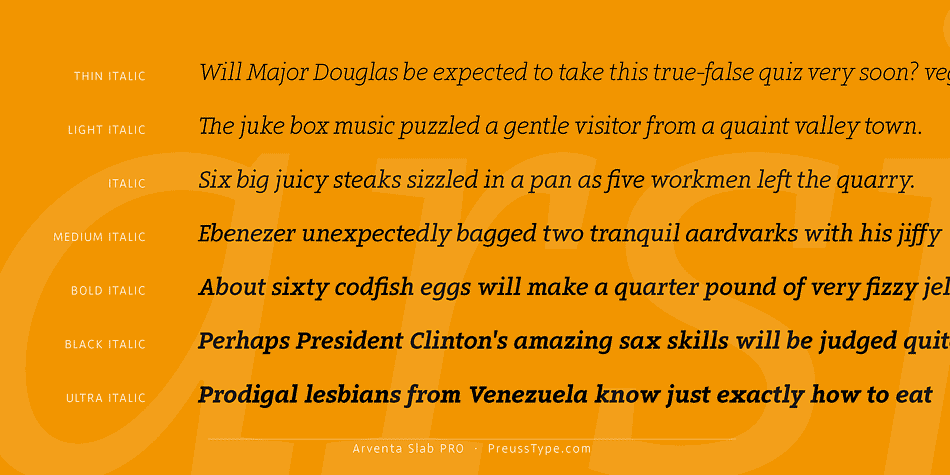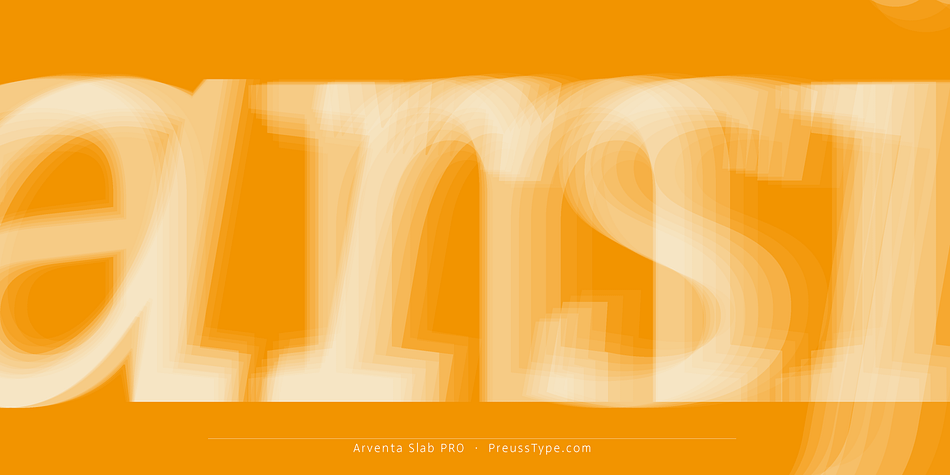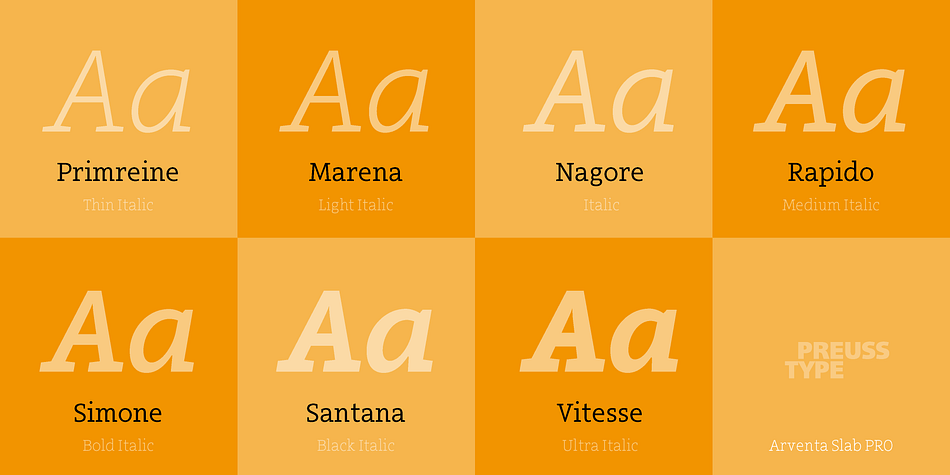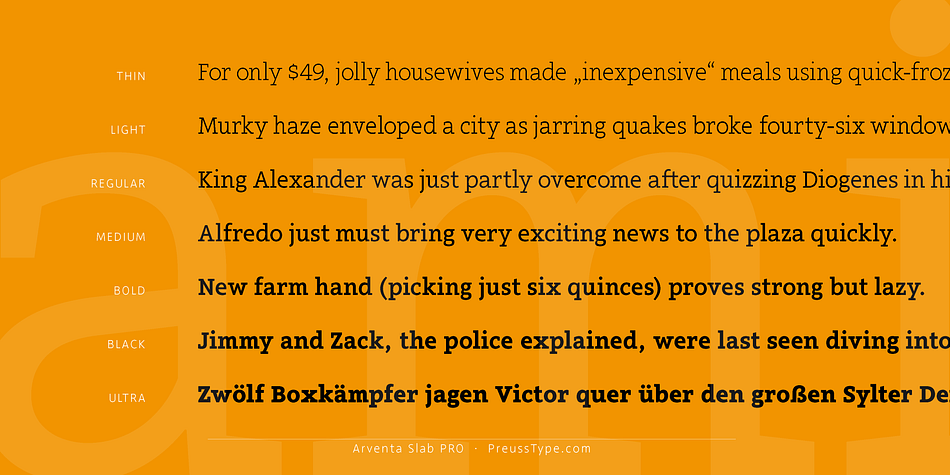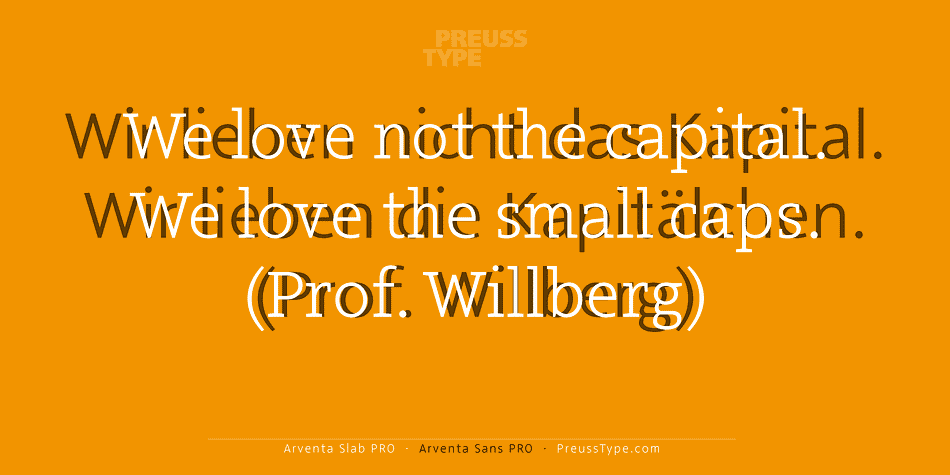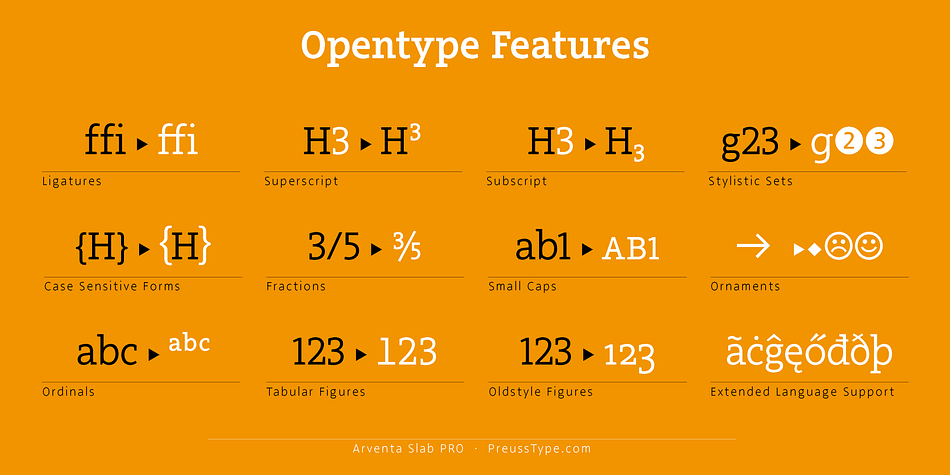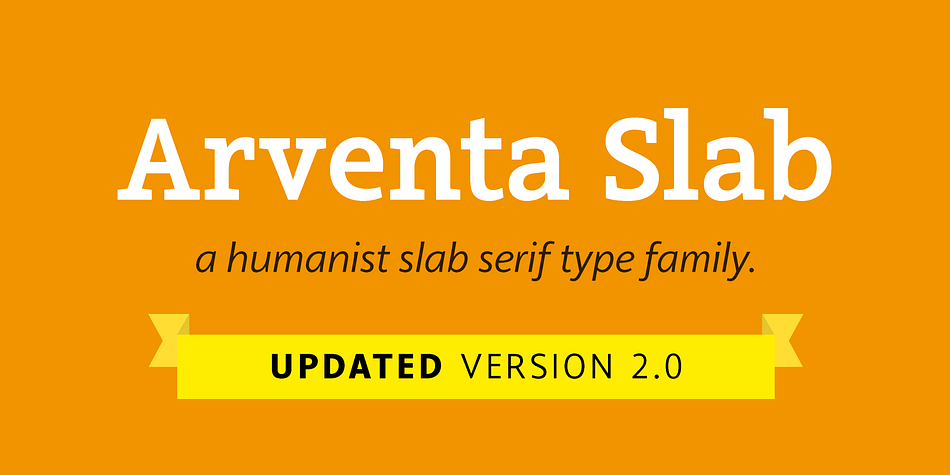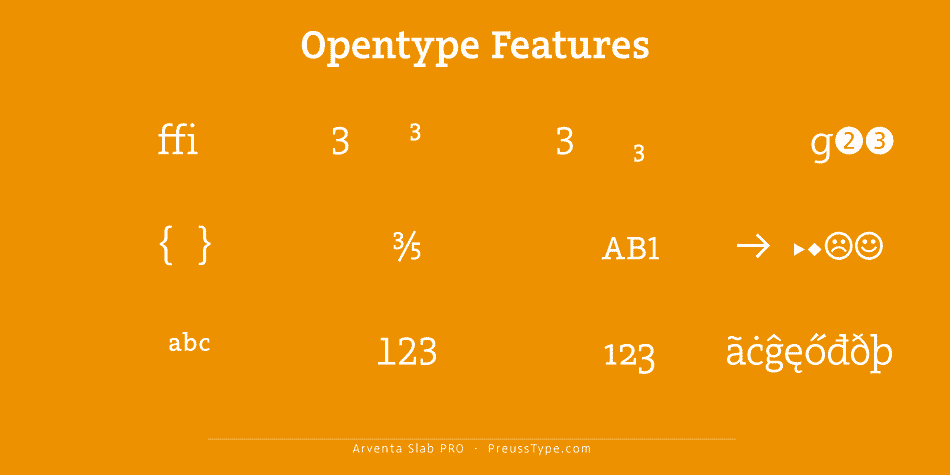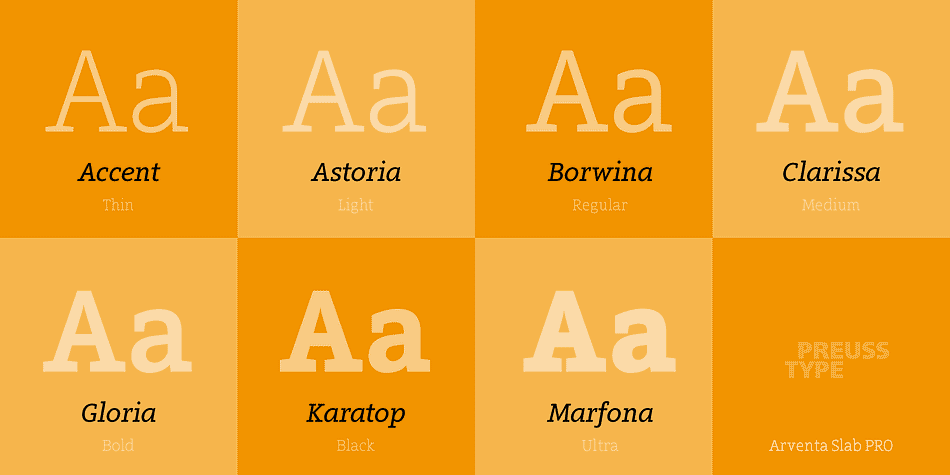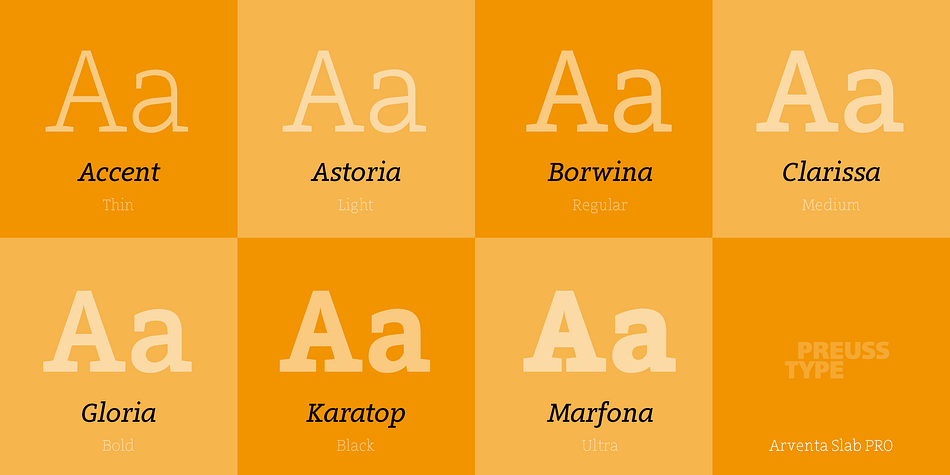
Arventa Slab Pro is a slab serif font family. This typeface has fourteen styles and was published by preussTYPE.
The Arventa PRO fonts consists of two different font families, a sans serif and a slab serif which are still based on each other. The slab serif closes the gap if a raised legibility is required.
Every Arventa PRO family has seven weight grads including the italics. Each font contains over 1100 letter including Small Caps, many digit sets and meaningful symbols.
Arventa Slab as well as Arventa Sans are excellently legible. Both are optimized for body copy text sizes. The font design is neither exclusively geometrical nor is constructed humanistically, the forms were drawn for quick and easy recognition.
It comes in OpenType format with extended language support. All weights contain ligatures, superior characters, proportional lining figures, tabular lining figures, proportional old style figures, lining old style figures, matching currency symbols, fraction- and scientific numerals and matching arrows.
The Arventa PRO family is suited for editorial design, newspapers, corporate design and for the book typography.